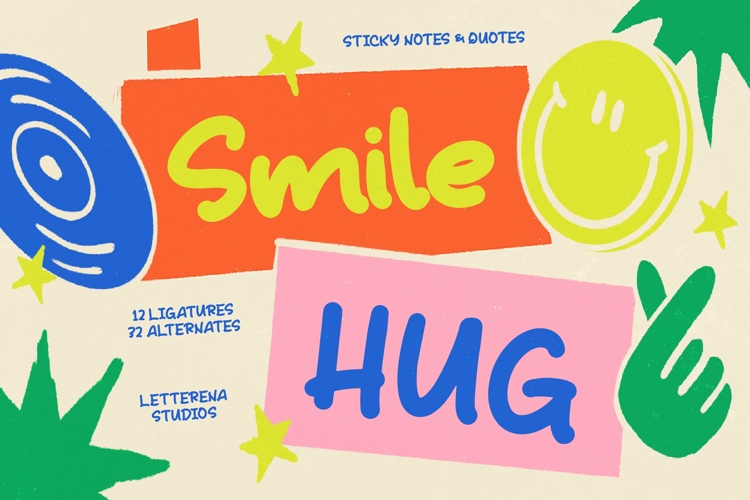
Smile Hug Sticky Notes Font
Elevate your creative projects with a sense of joy and approachability through dynamic typography. Smile Hug - Sticky Notes is a vibrant, playful display font designed to capture immediate attention and evoke a sense of warmth. Its organic, hand-drawn curves and bold weight offer a unique aesthetic that feels both modern and nostalgically charming. Whether you are aiming for a fun-filled visual identity or a casual note-style layout, this typeface provides the perfect balance of legibility and creative flair.
Expand your brand’s reach effortlessly with a high-performance typeface built for the modern, global world. Versatility is at the core of this design, ensuring it performs brilliantly across diverse media formats and digital platforms. With its extensive multilingual support, Smile Hug - Sticky Notes adapts seamlessly across global markets, making it incredibly versatile for international projects. This global compatibility ensures that your marketing messages remain consistent and impactful, regardless of the territory or language.